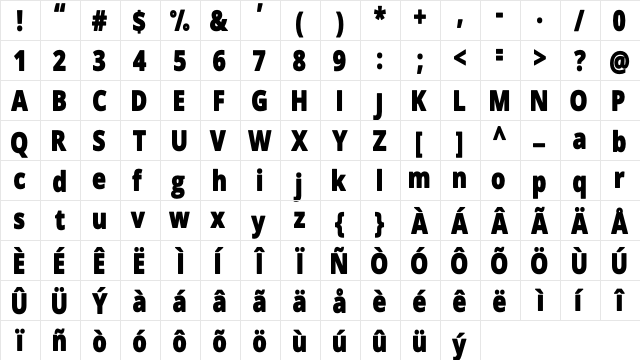
Novus-Bold Regular
Design Context for Novus-Bold Typeface
Novus-Bold offers clean, dependable letterforms without strong stylistic allegiance, making it a practical choice for designers who need flexibility. The heavy weight commands attention and anchors typographic hierarchies.
Pro Tip: Use Novus-Bold in both headline and body roles to test its range before committing to a single application.